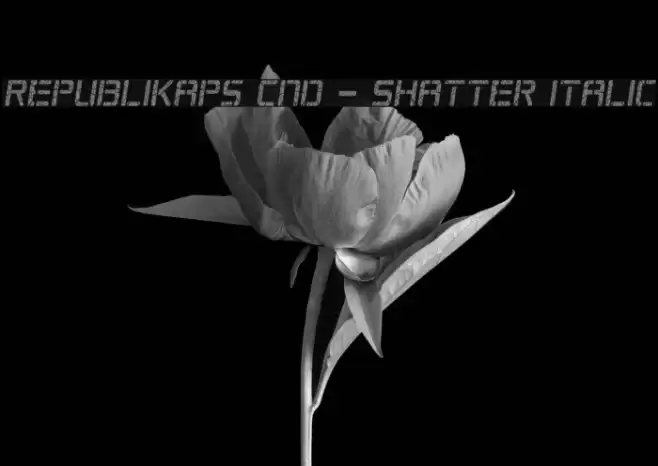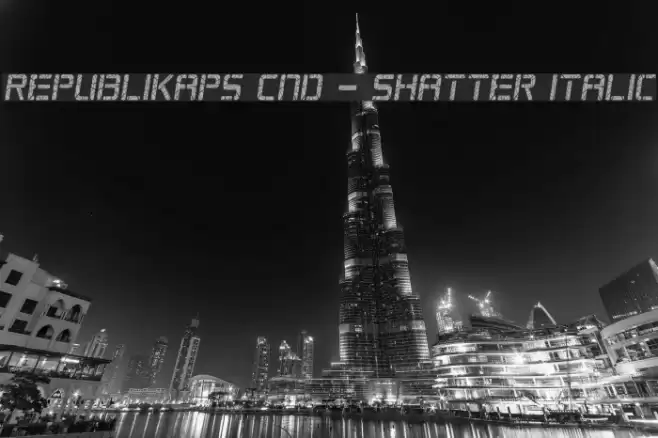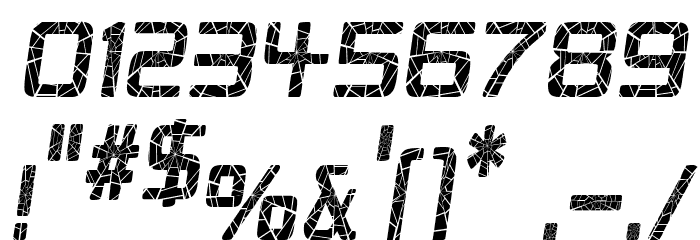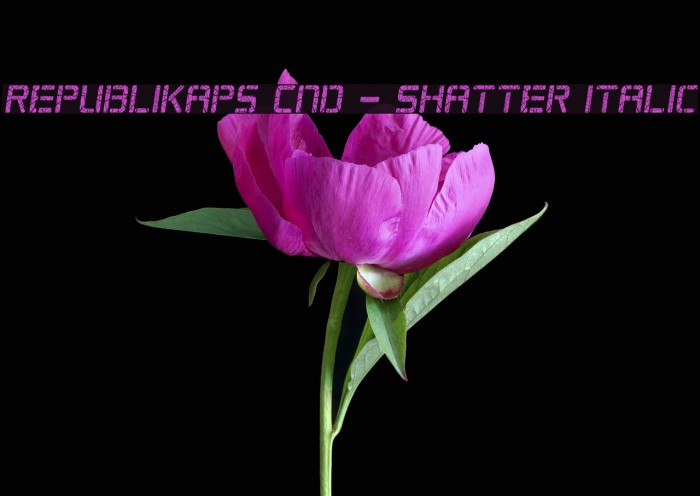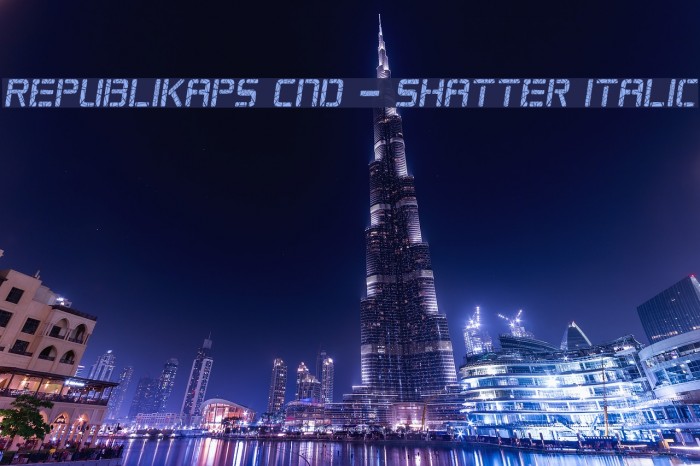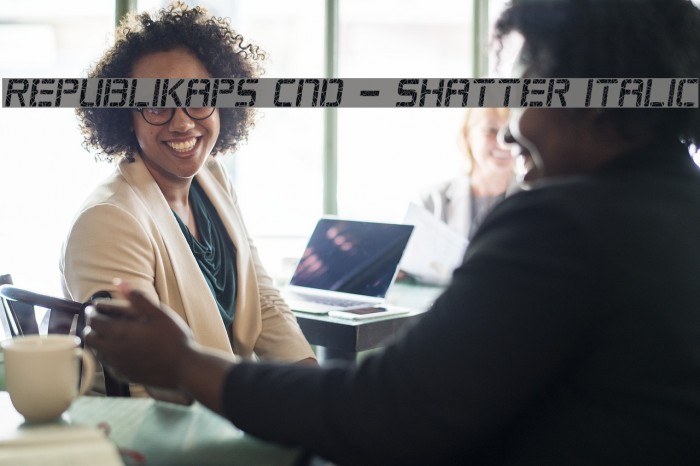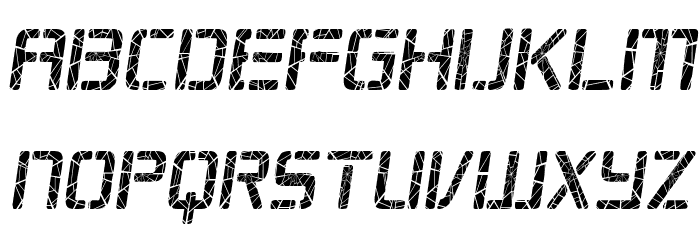
Republikaps Cnd - Shatter Italic Font
Republikaps Cnd - Shatter Italic Description
This font features a unique shattered effect, giving each character a fragmented and dynamic appearance. The angular, geometric shapes are consistent across both uppercase and lowercase letters, as well as numbers and special characters. The design is bold and eye-catching, making it ideal for projects that require a strong visual impact. The italicized style adds a sense of motion and energy, enhancing its modern and edgy aesthetic. The condensed width allows for efficient use of space, while the medium contrast in stroke thickness ensures readability despite the intricate design.
A bold, shattered-effect, italicized font with a modern and dynamic style from Uncategorized fonts.
- Proposed Projects: Ideal for posters, album covers, branding projects, and any design requiring a striking and contemporary look.